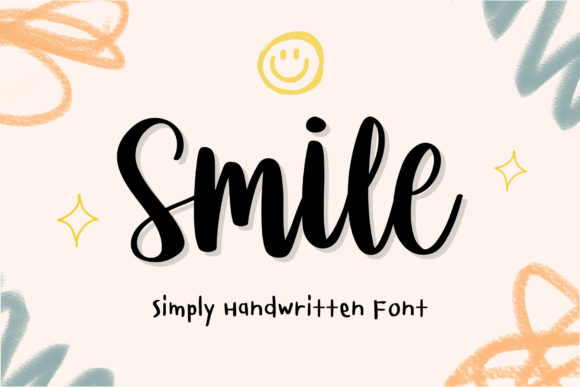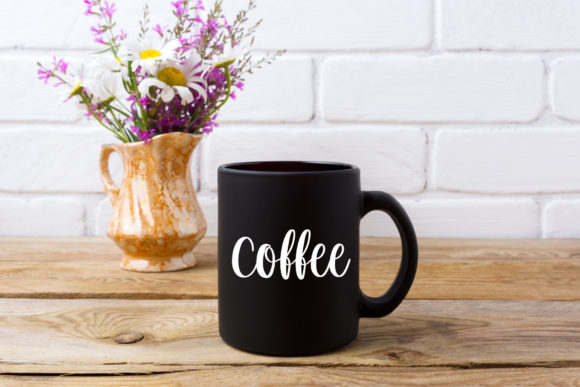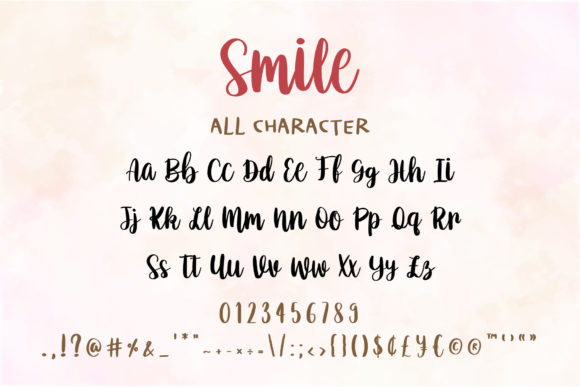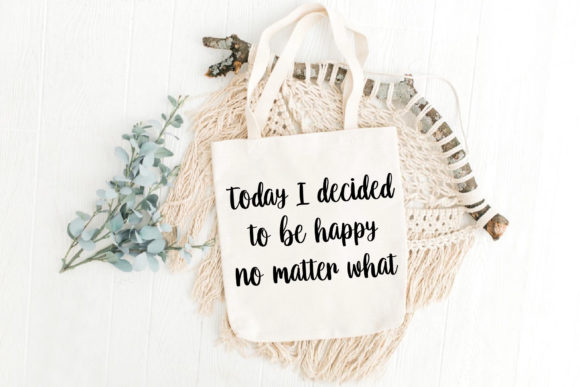
**Smile Font: Playful and Quirky Handwritten Charm**
Introducing *Smile Font*, a cute and friendly handwritten typeface that brings a playful and slightly quirky touch to your designs. This font is the perfect fit for a variety of creative projects, including logos, branding, posters, and crafty DIY endeavors. With its charming and approachable style, *Smile* adds a delightful element to your visual creations.
The charm of *Smile* lies in its handwritten aesthetic, exuding a friendly and playful vibe. Each letter carries a hint of quirkiness, making it well-suited for projects that call for a touch of creativity and personality. Whether you’re crafting a logo, designing branding materials, or working on posters, *Smile* brings a sense of joy and character to your text.
The versatility of *Smile* makes it an ideal choice for various applications. Its cute and friendly nature makes it suitable for projects that need a lighthearted and approachable feel. From crafting eye-catching logos to adding a playful touch to DIY projects, this font adapts seamlessly to different design needs.
Incorporating *Smile* into your creative endeavors adds a unique charm that sets your designs apart. The handwritten style brings a sense of authenticity and warmth, making it a font that resonates with a wide audience.
In summary, *Smile Font* is more than just a typeface; it’s a playful and quirky handwritten charm that injects joy into your designs. Let it be the perfect fit for your logos, branding, posters, and crafty DIY projects, adding a delightful and friendly touch to every creative endeavor.